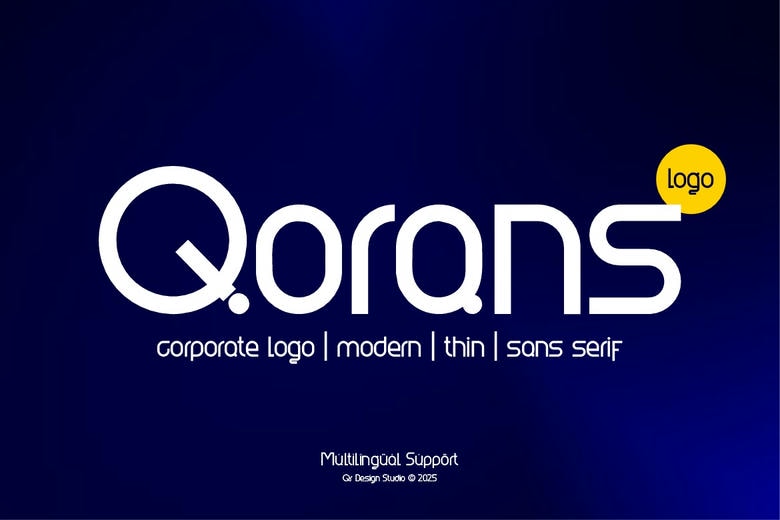
Qorans Font
Qorans is a minimal sleek modern sans-serif font used in corporate identity and digital-based branding. Its professional, clear looks are achieved with the help of clean lines, thin stroke simplistic, geometric structure. The typeface is futuristic yet minimalist in precision, as such is perfect to be utilized in logos, tech companies and startups, app screens, and progressive branding design.
Its letterforms are generous, but disciplined in a way that presents an approachable and at the same time high-tech vibe. The unusual shape of such characters as the Q in that diagonal incision and period, or the faint curved “r” and the “a” etc. bring individuality without loss of legibility. Qorans is sophisticatedly simple, providing a polished voice in the contemporary communication.
It is maximized according to functionality that makes it multilingual character-friendly and looks excellent printed as well as on the internet. Elegance and modern confidence makes Qorans the choice whether the use of font is clean product branding or the use of Qorans in modern corporate logo.
Qorans Corporate Logo Font